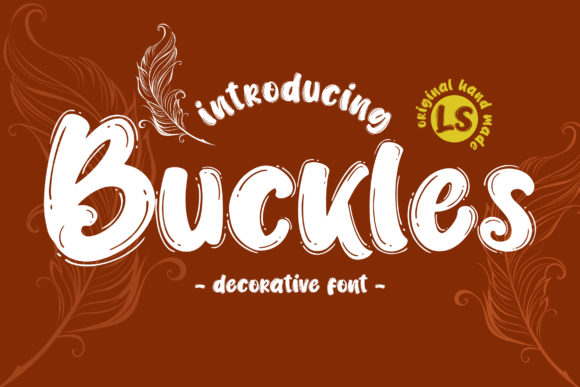
Unleash your creative spirit with Buckles Font, the epitome of modern typography. Bold, striking, and brimming with character, this captivating display font invites you to explore a world of design possibilities. Its smooth curves and dynamic lines are a testament to the artistry of Gumacreative, the font's creator.
Immerse yourself in the world of fashion branding and editorial design with Buckles Font as your guide. Its inherent readability and stylish demeanor make it the perfect choice for conveying your messages with impact. Watch as your designs come alive with a newfound energy, captivating your audience with every stroke.
Buckles Font is a versatile chameleon, effortlessly adapting to a myriad of creative endeavors. Whether you're crafting logos that demand attention, designing brochures that leave a lasting impression, or creating social media posts that resonate, Buckles Font will elevate your creations to new heights.
With Buckles Font at your disposal, you'll discover a new level of design freedom. Its intuitive nature makes it a joy to use, allowing you to focus on expressing your unique vision without technical hurdles. Embrace the power of typography and unleash the full potential of your creative genius.